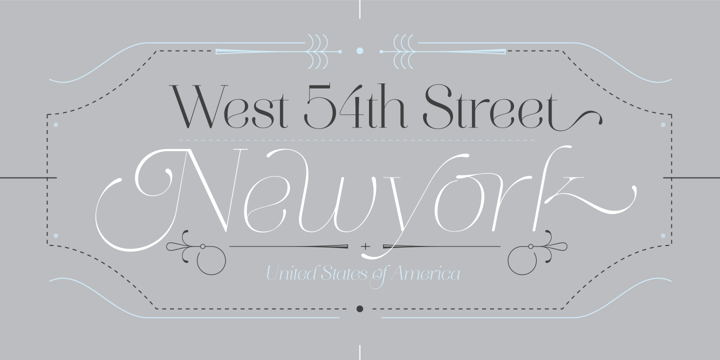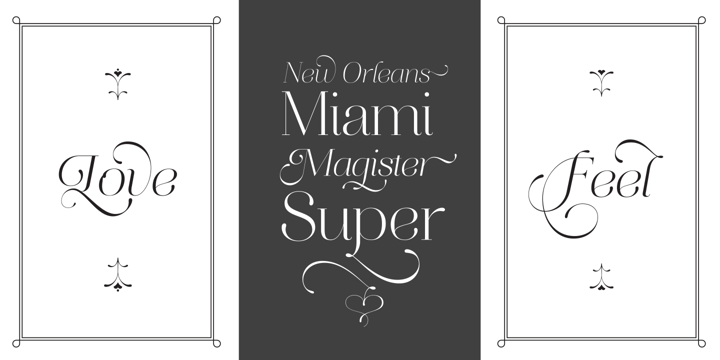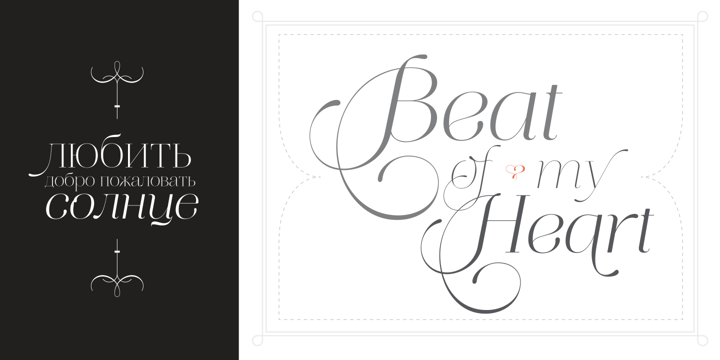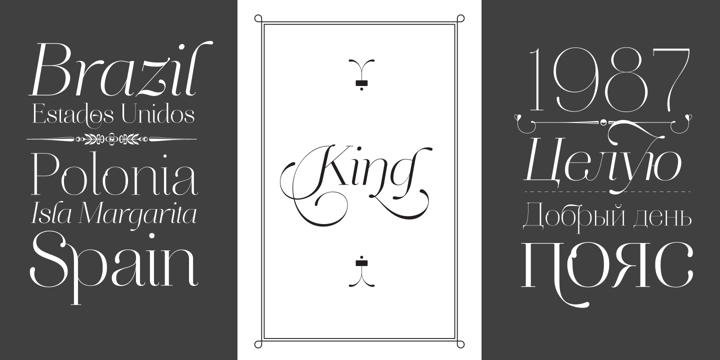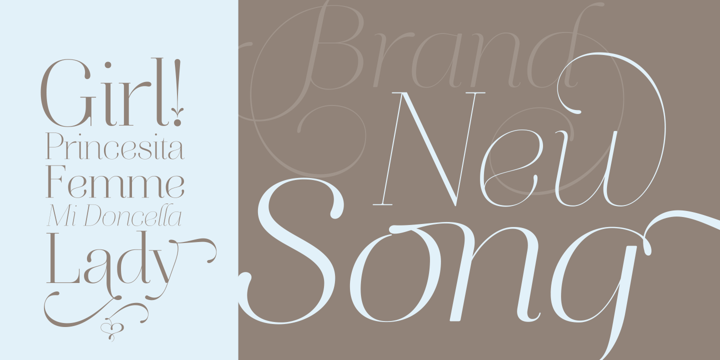
Aire is what Sproviero would call a < big display family >. We recommend seeing its user\’s guide. After his success with Reina, Sproviero comes out with this big family of 7 members: Each of them loaded with lots of sophisticated ligatures, alternates…